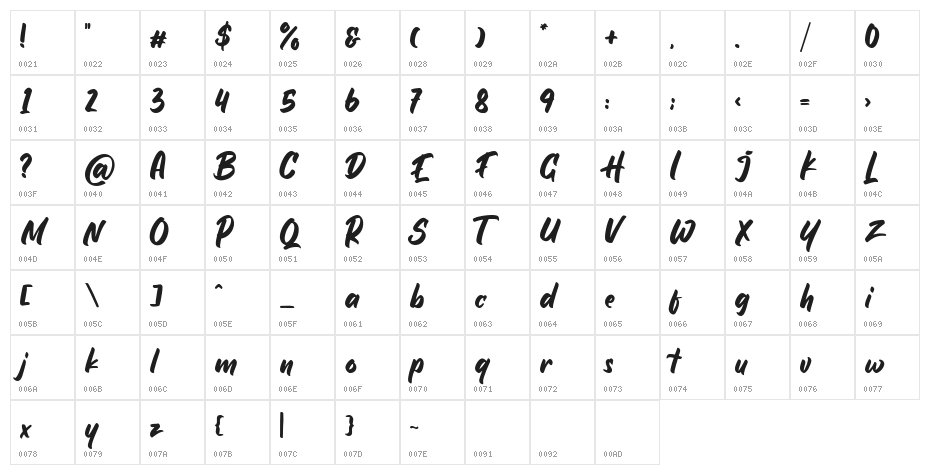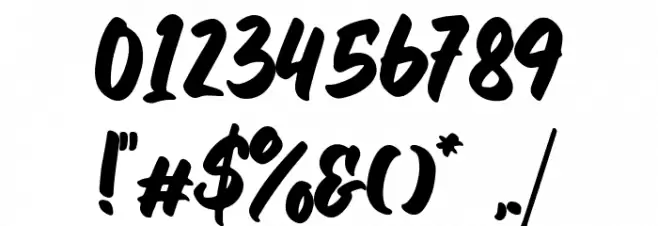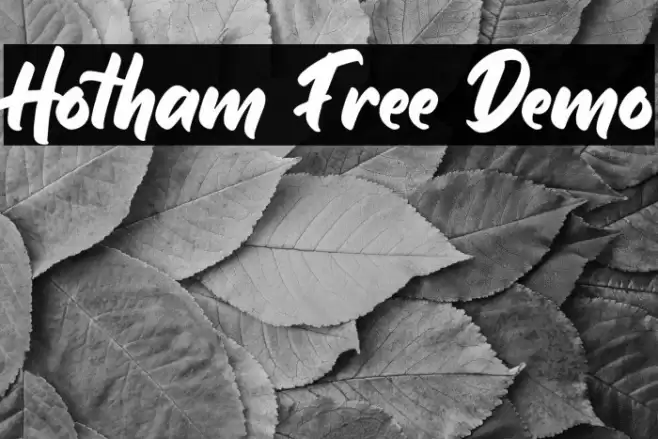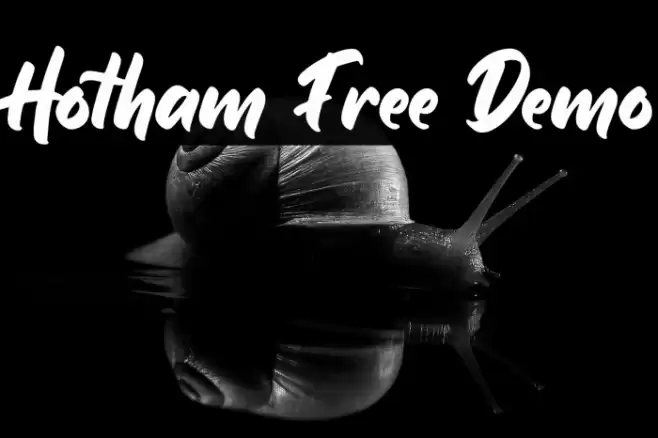
Hotham Free Demo Font
This font features a bold, dynamic script style with a handwritten appearance. The letters are fluid and connected, giving a sense of motion and energy. The uppercase characters are particularly striking, with sweeping curves and a strong presence. The lowercase letters maintain the same fluidity, creating a cohesive look. Numbers and special characters are designed with the same bold strokes, ensuring consistency across all elements. This font's style is both modern and artistic, making it suitable for creative projects that require a personal touch.
| Proposed Projects | Ideal for branding, logos, posters, and creative designs that need a personal and artistic touch. |